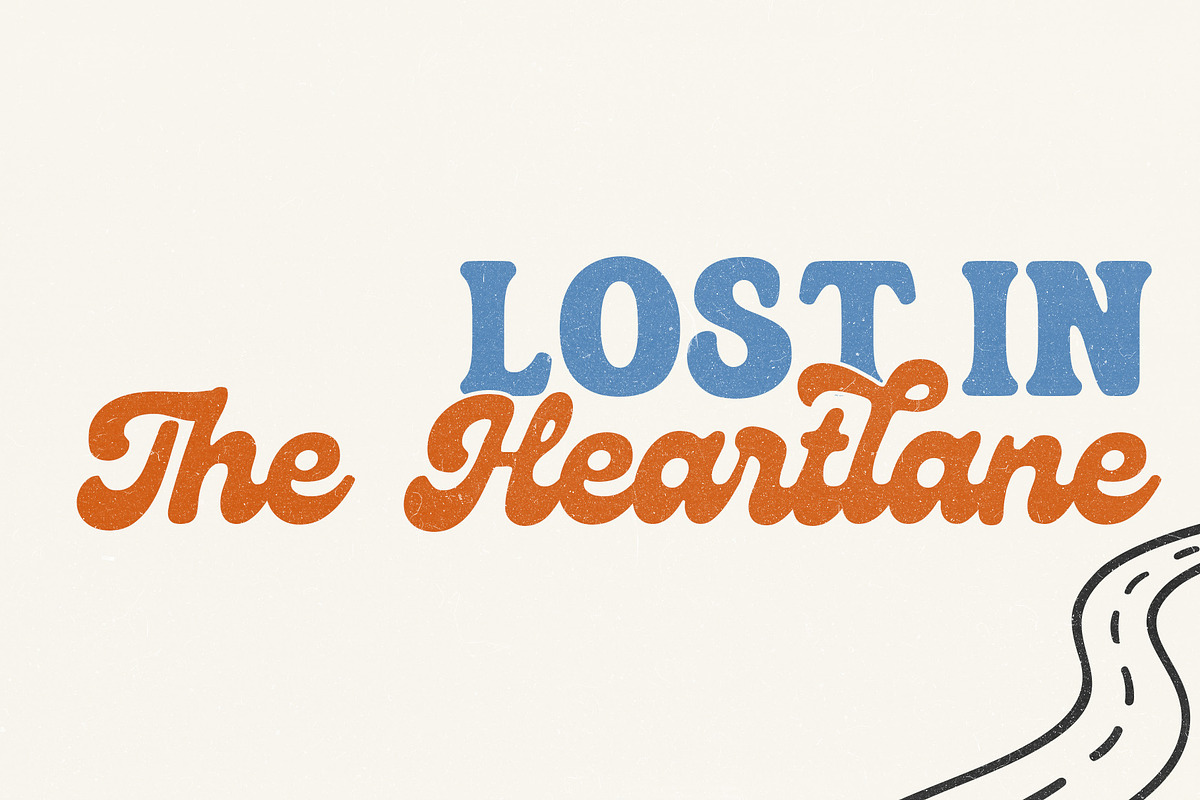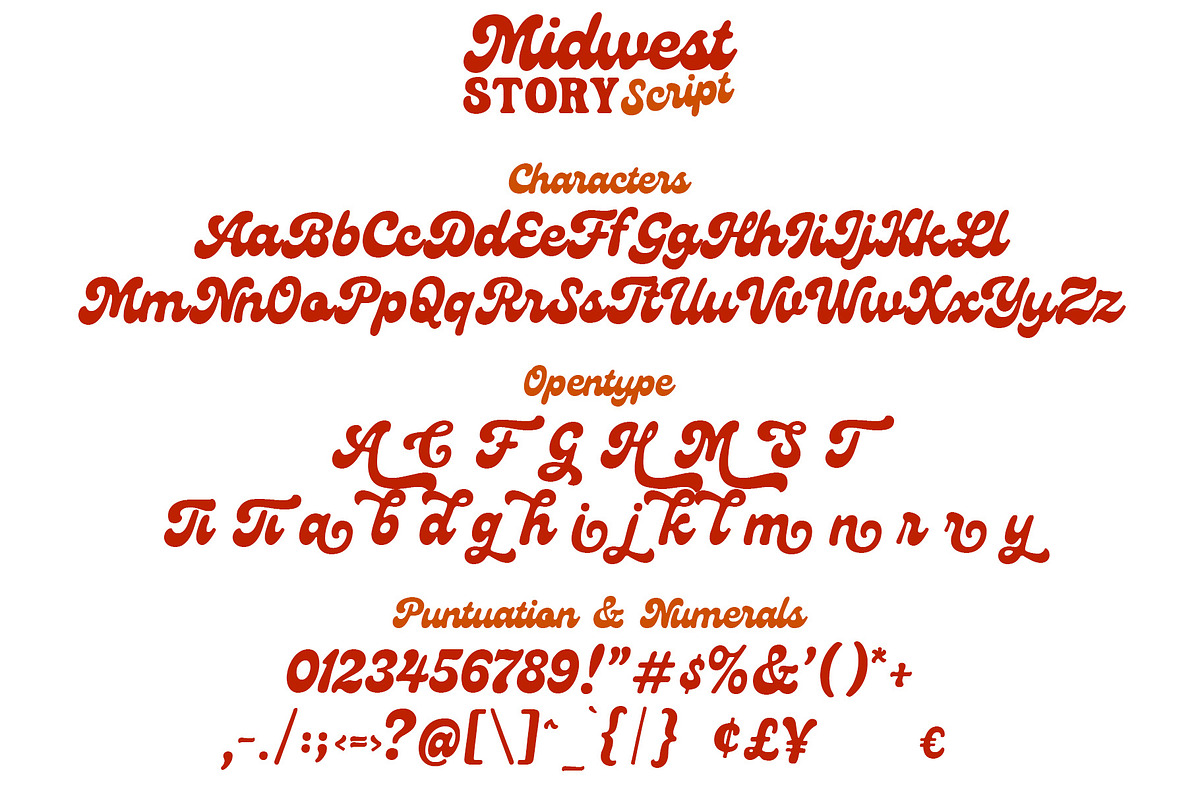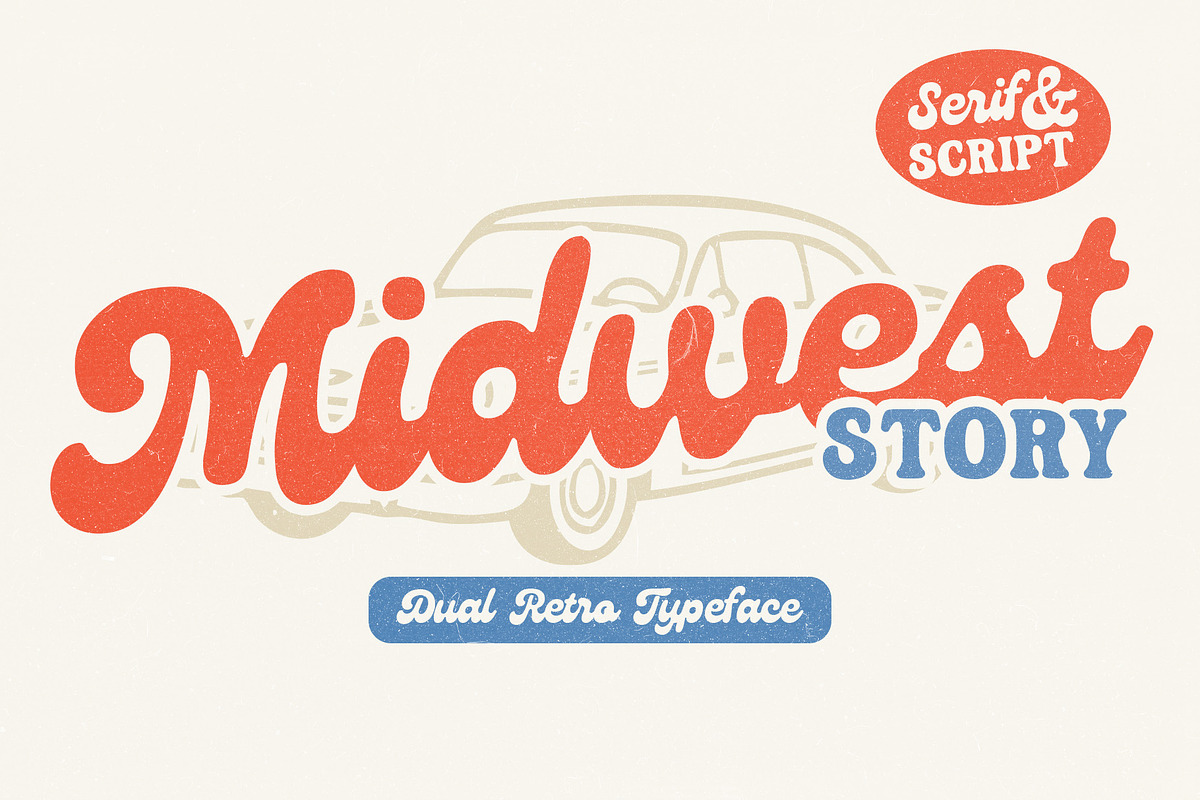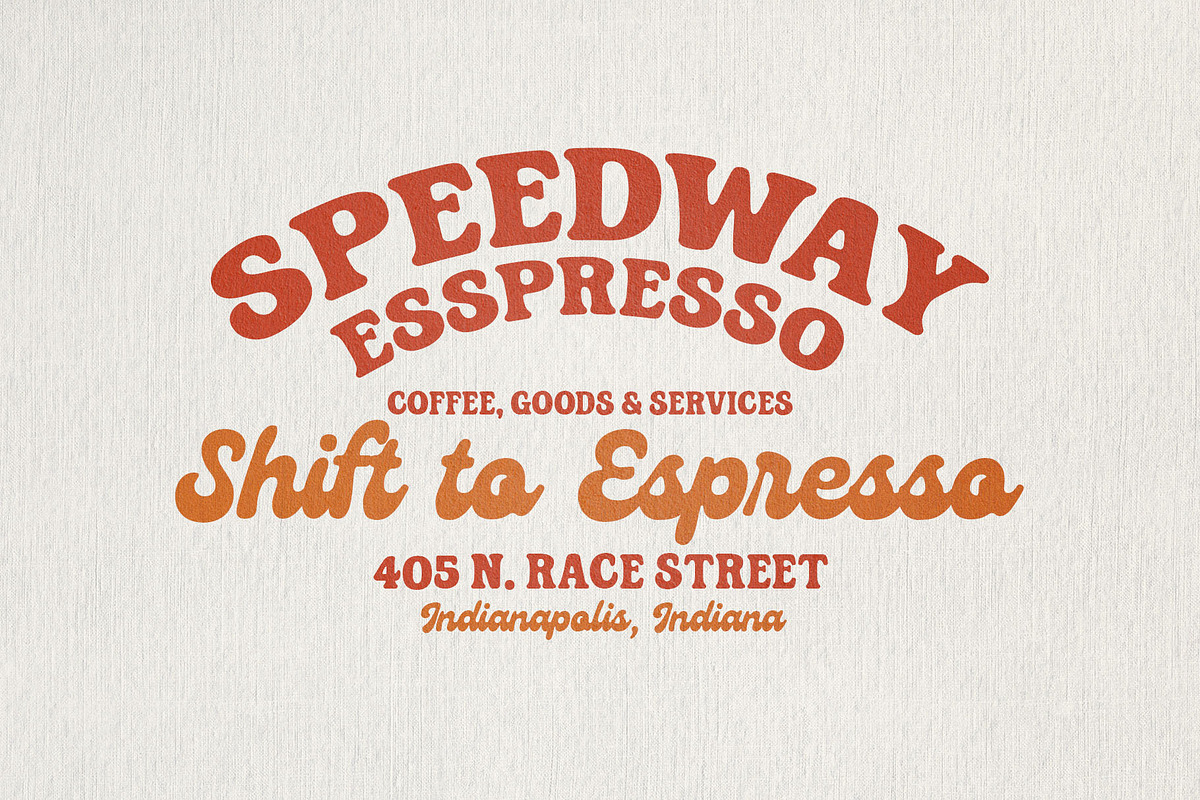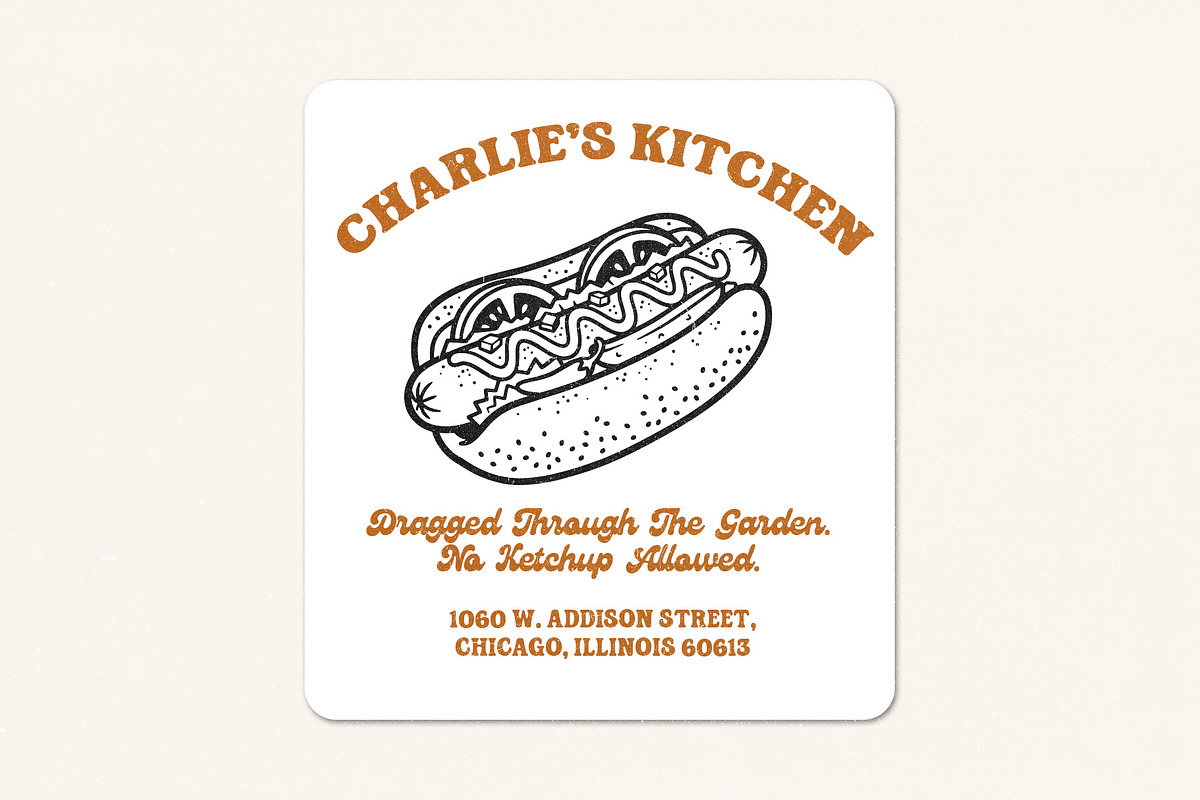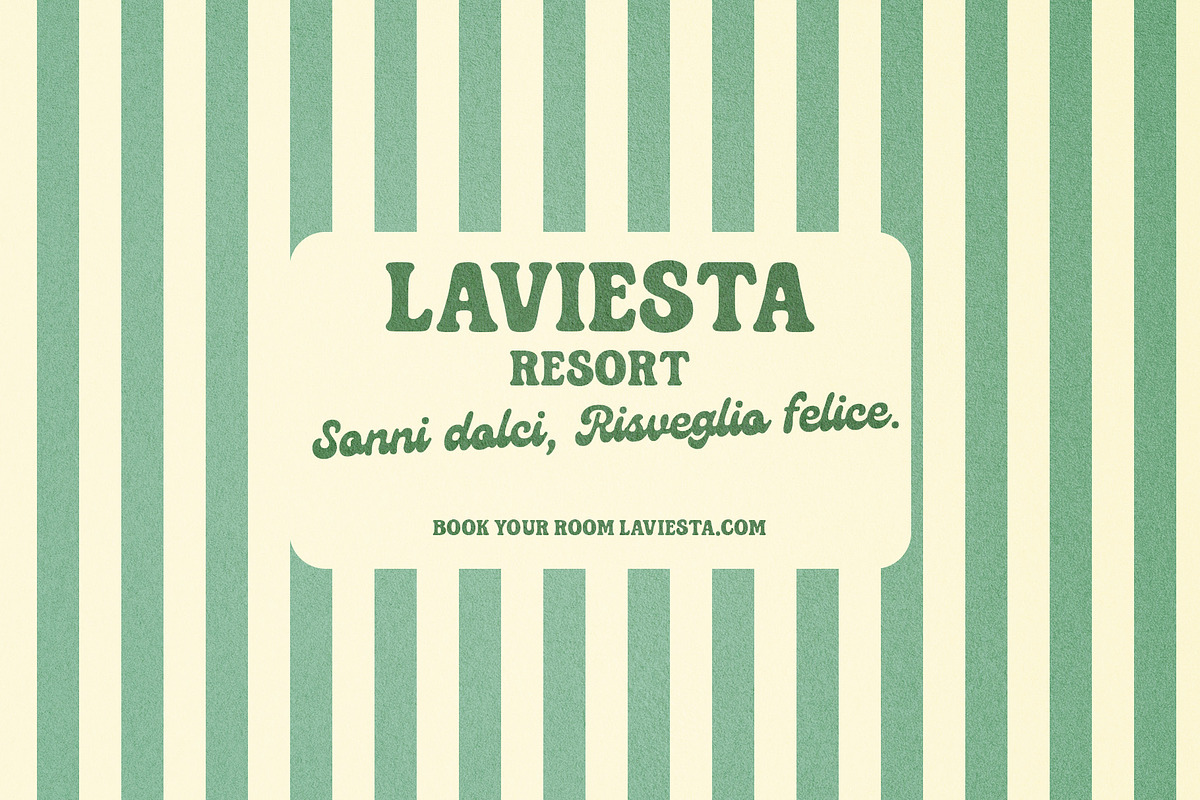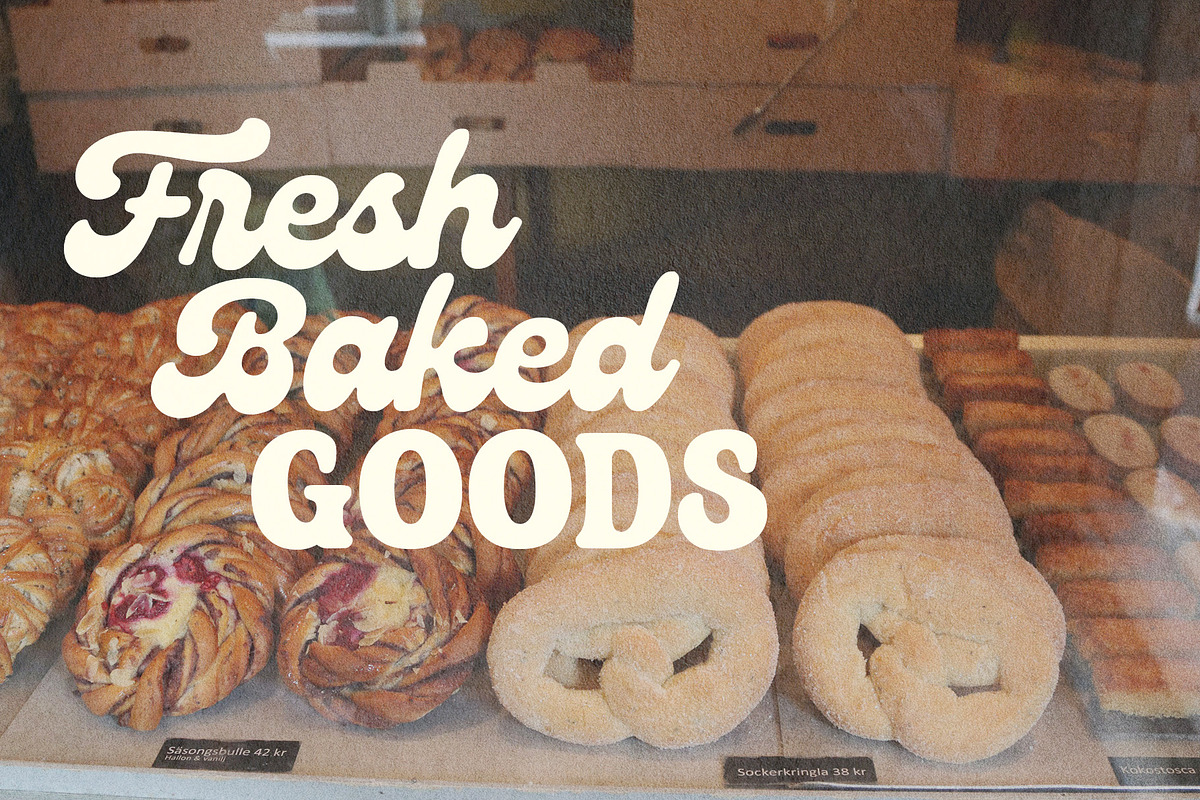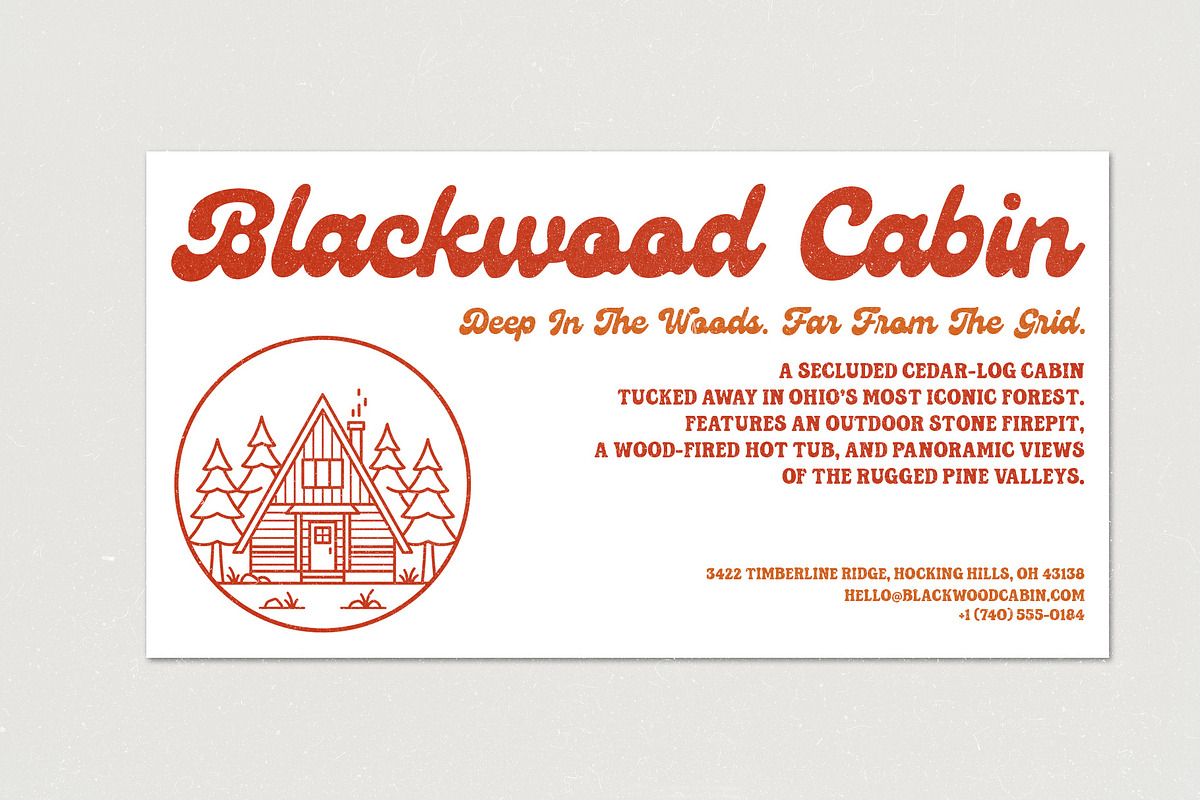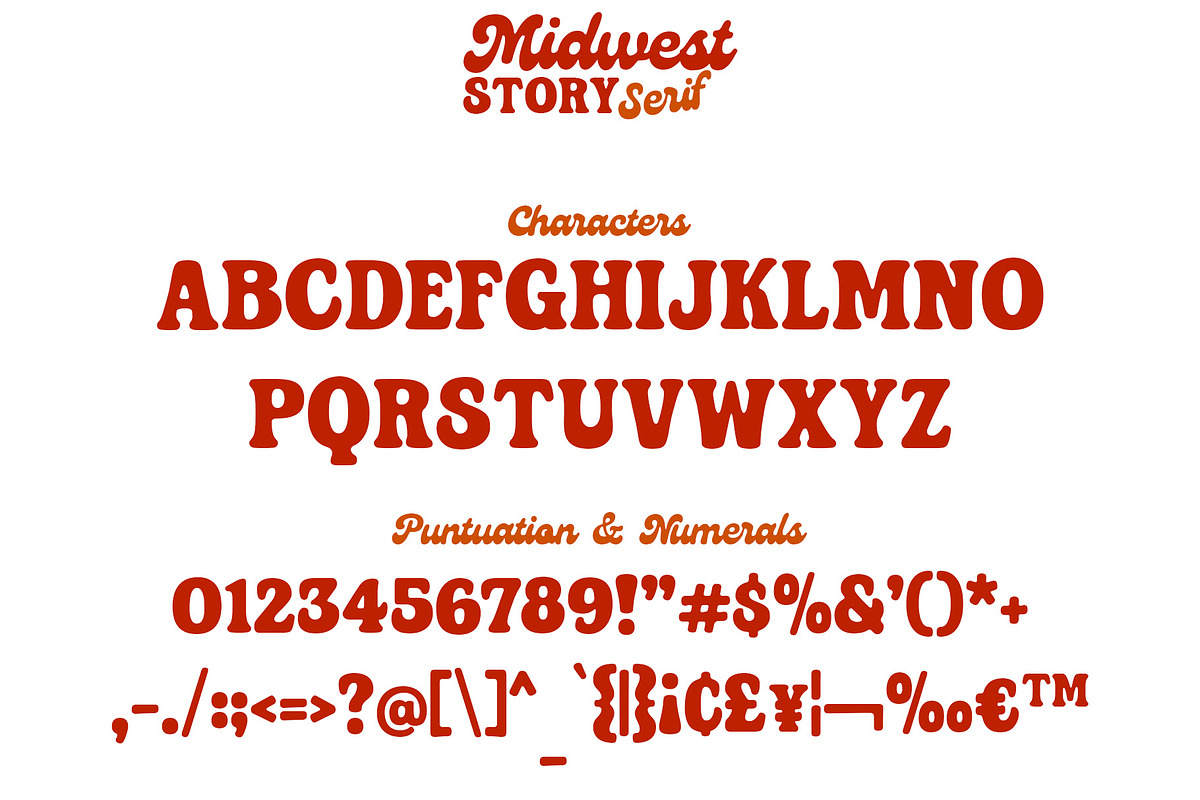
Midwest Story Dual Font
Introduce Midwest Story, a powerhouse dual-font family meticulously crafted to capture the authentic, rugged charm of vintage Americana and 1970s custom culture. Combining a bold, expressive script with a sturdy, hard-working serif, this duo delivers an instant nostalgic impact to any creative project.
Whether you’re designing a vintage motorcycle garage logo, a trendy roadside diner menu, or a moody Airbnb cabin branding mockup, Midwest Story provides the perfect typographic hierarchy straight out of the box.
Midwest Story Script (.otf, .ttf, .woff, & .woff2): A bold, flowing, and charismatic script font. Perfect for massive headlines, clothing brand logos, and eye-catching signage.
Midwest Story Serif (.otf, .ttf, .woff, & .woff2): A solid, geometric-influenced serif built for ultimate legibility. Ideal for clean sub-headlines, high-tracking body texts, and vintage stamp emblems.